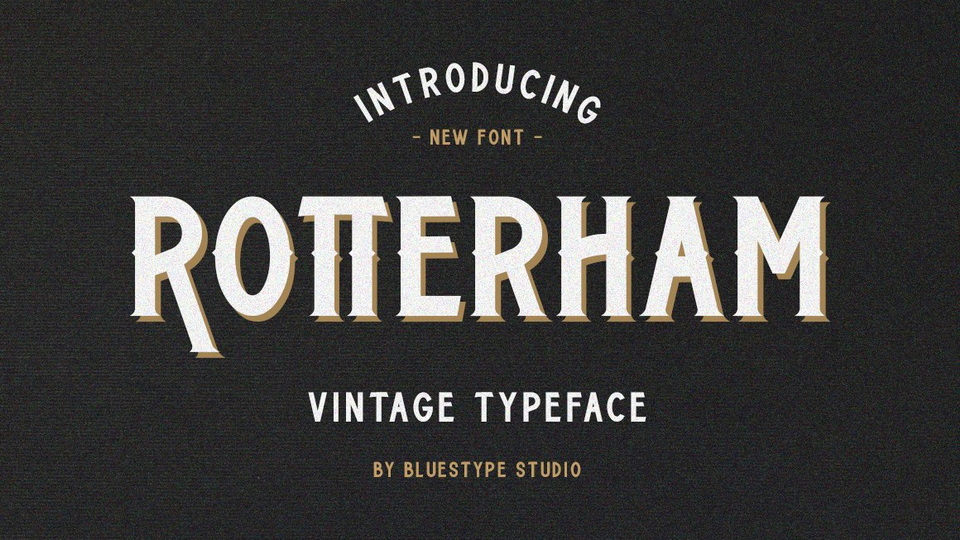
Download Rotterham font, a vintage display typeface. Rotterham is very suitable for logotype, headlines, emblems, logos, magazines, books, packaging, clothing, t-shirt, and labels.